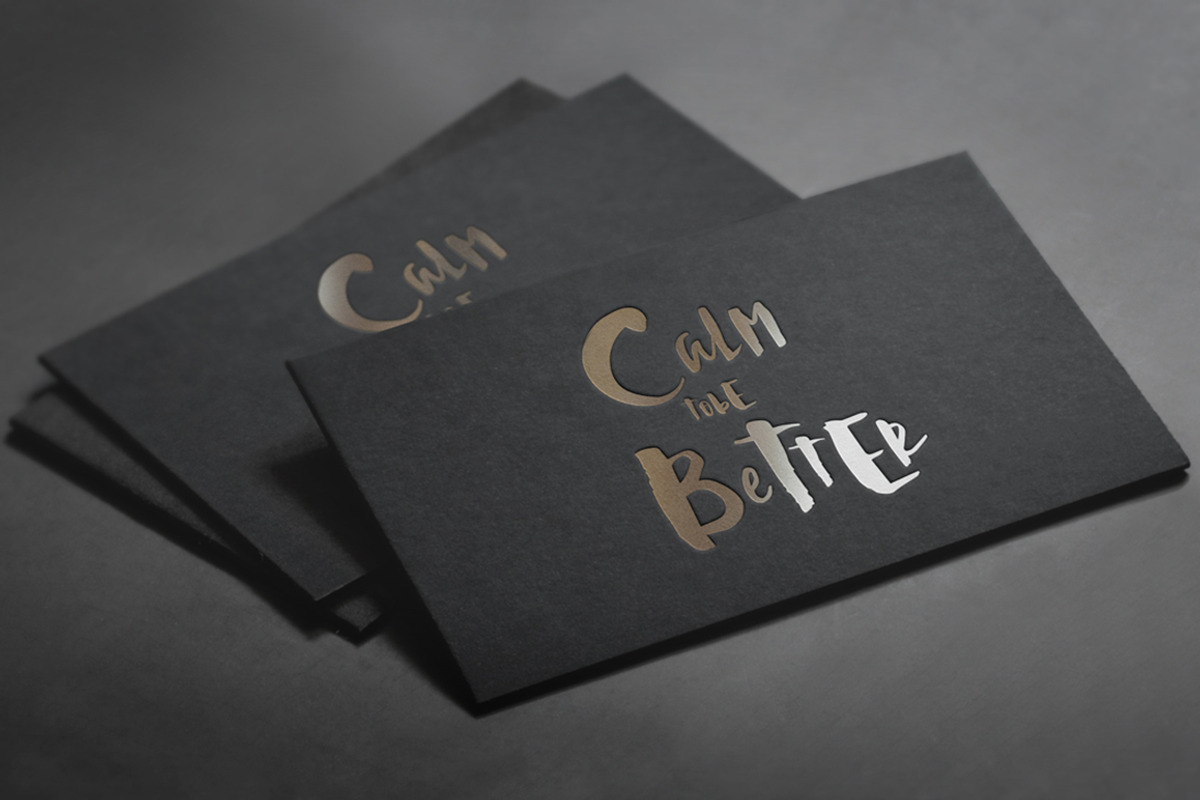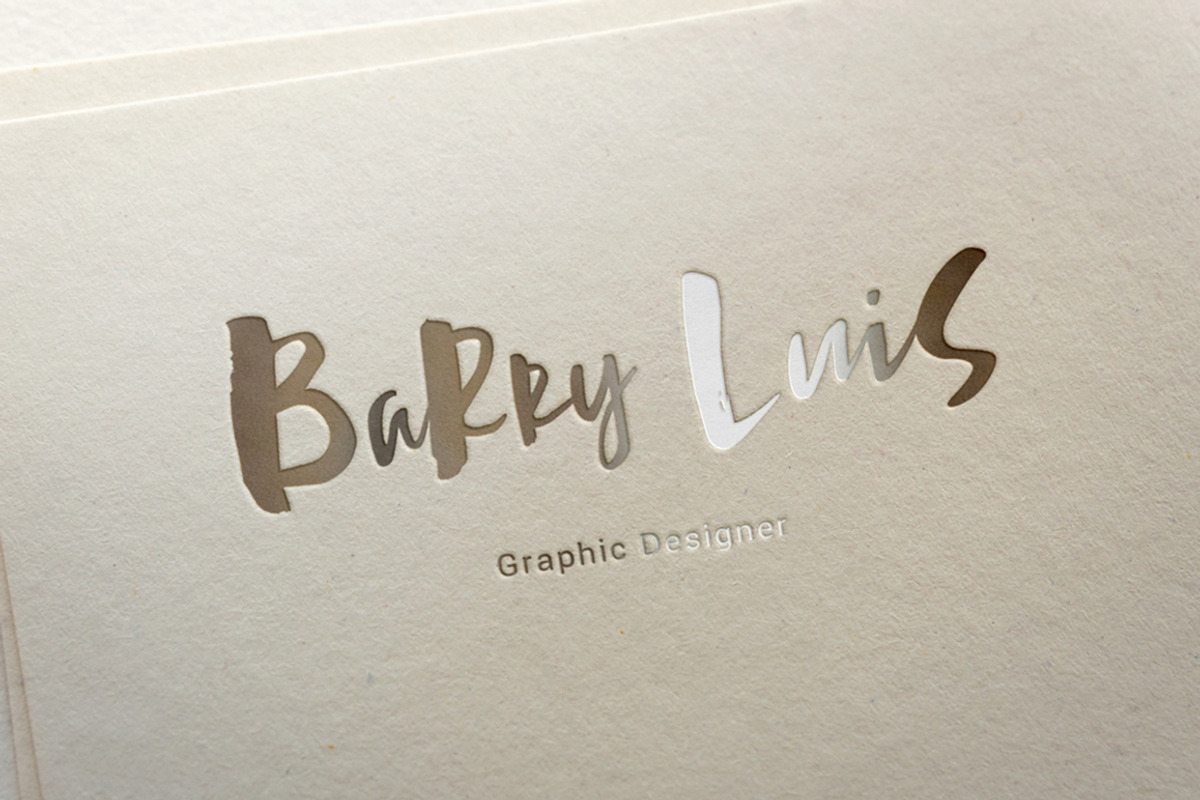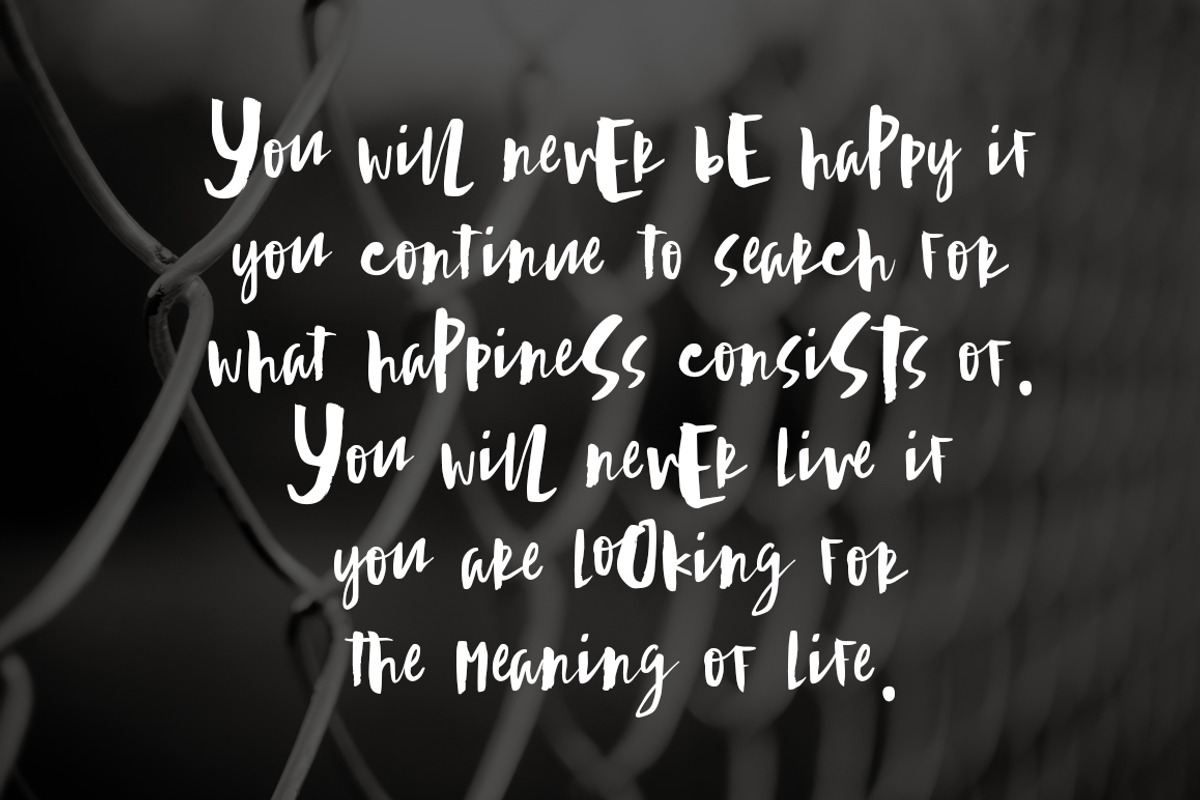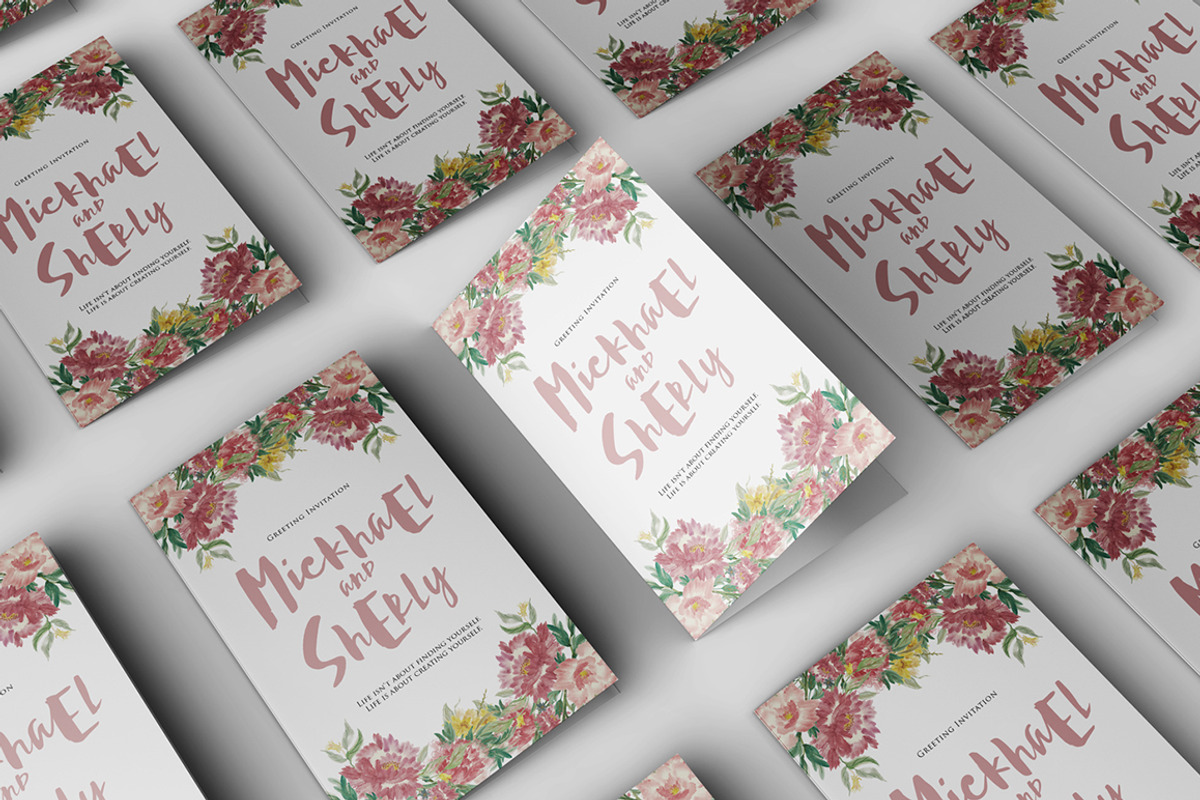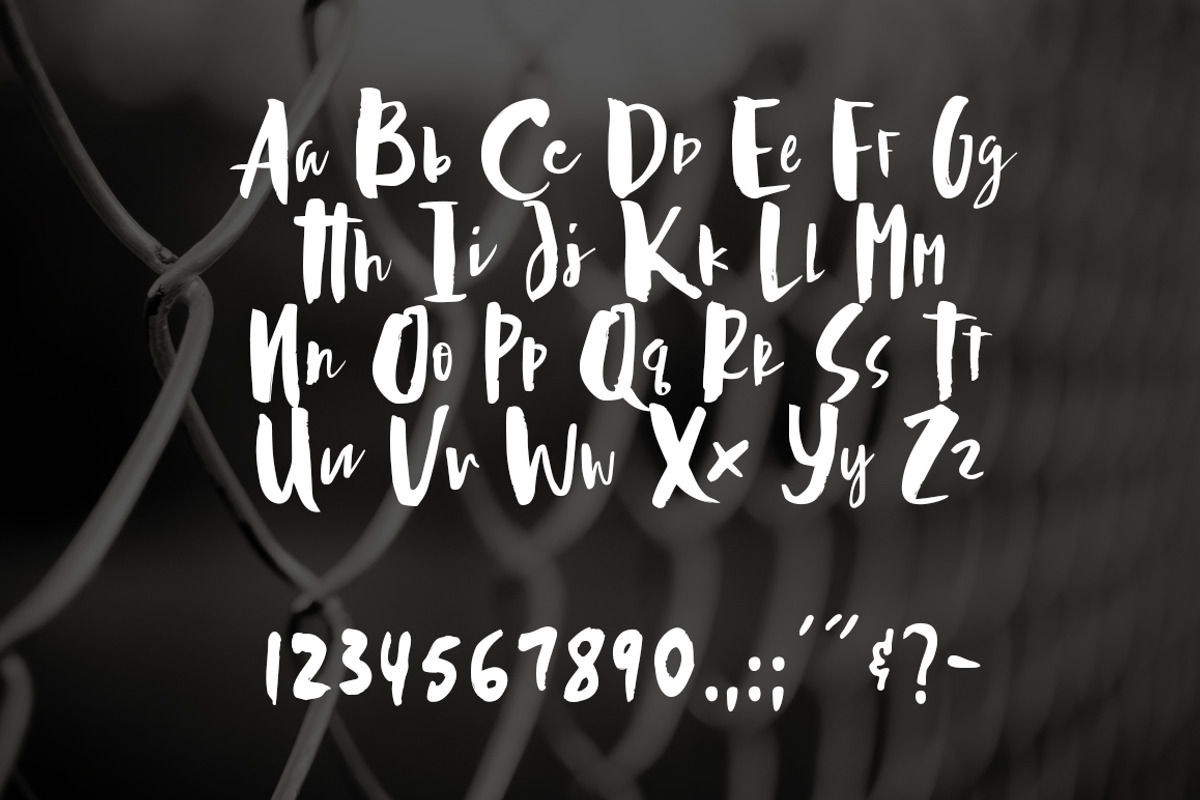
Adilla and Rita Typeface
Adilla and Rita Typeface by Thirtypath Studio is a font selected for branding, posters, packaging, typography.
- Comes with upper and lowercase characters, large set of punctuation glyphs, numerals, and supports international languages.
Why Adilla and Rita Typeface is worth a look
Adilla and Rita Typeface by Thirtypath Studio fits naturally into Branding, posters, packaging, typography.